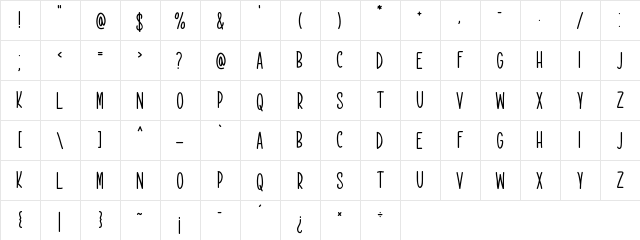
Rekobip - Free For Personal Use Regular
Design Context for Rekobip - Free For Personal Use Typeface
Rekobip - Free For Personal Use offers clean, dependable letterforms without strong stylistic allegiance, making it a practical choice for designers who need flexibility.